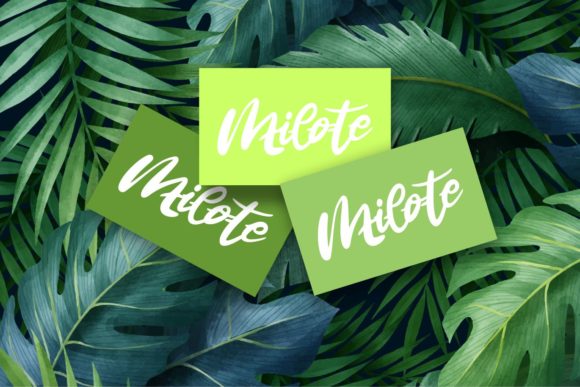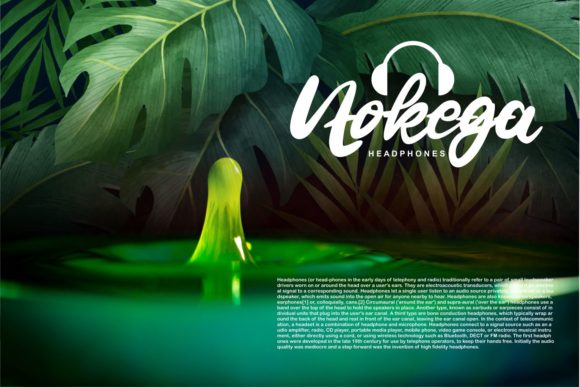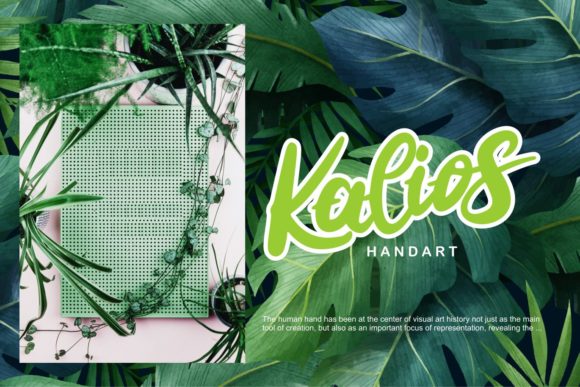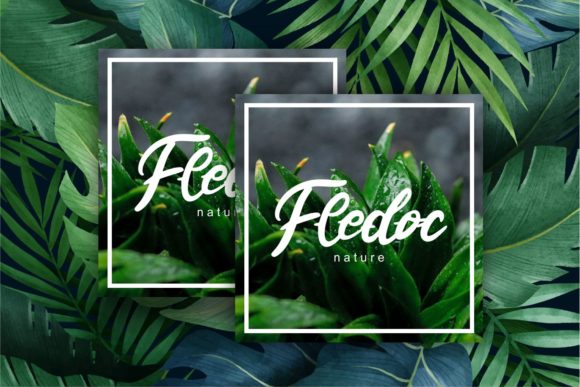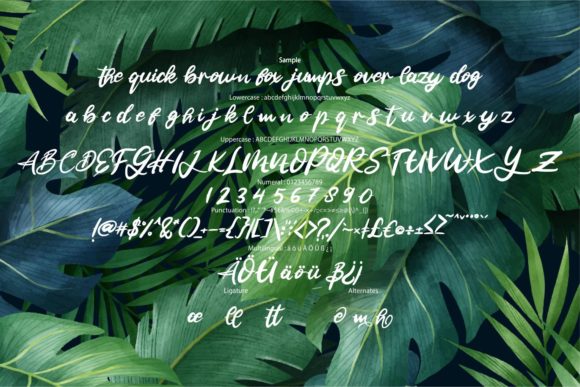
Introduction to Jalie Font
Jalie is a beautiful script font.
It maintains its classy calligraphic influences while feeling contemporary and fresh This versatility will appeal to a wide range of crafty ideas, from letterheads and titles, to stationery.